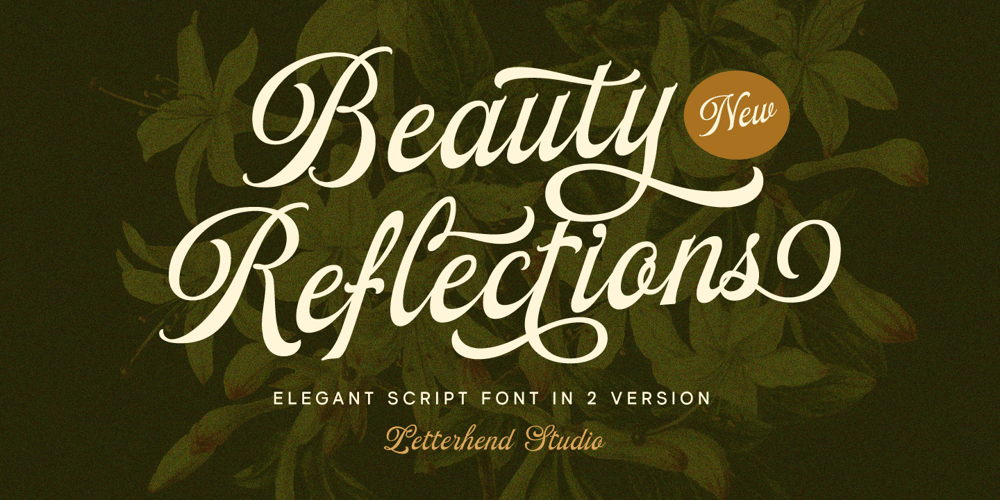
Beauty Reflections Font Family was designed by Hendry Juanda and published by Letterhend. Beauty Reflections contains 2 styles and family package options. Beauty Reflections is a elegant script font that embodies the artistry of calligraphy with a touch of grace. The carefully crafted letterforms exquisite flourishes and intricate details, showcasing the perfect balance between elegance and opulence. It comes with regular and custome version.This font perfectly made to be applied especially in logo, and the other various formal forms such as invitations, labels, logos, magazines, books, greeting / wedding cards, packaging, fashion, make up, stationery, novels, labels or any type of advertising purpose.Features : Uppercase & lowercase Numbers and punctuation Alternates & Ligatures Multilingual PUA encoded We highly recommend using a program that supports OpenType features and Glyphs panels like many of Adobe apps and Corel Draw, so you can see and access all Glyph variations.